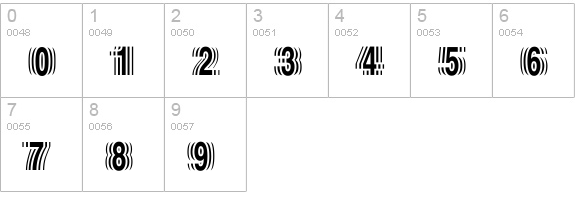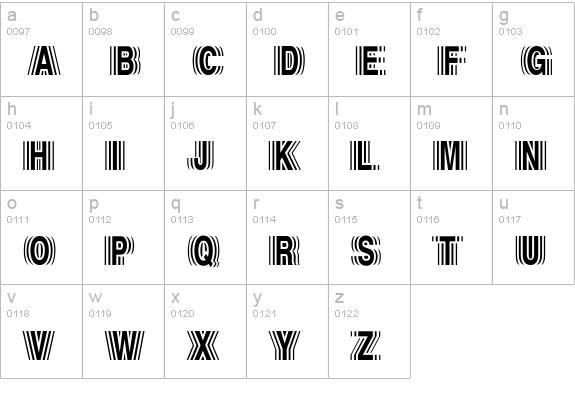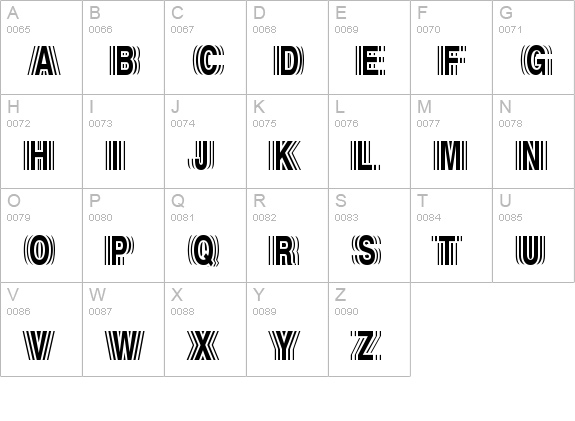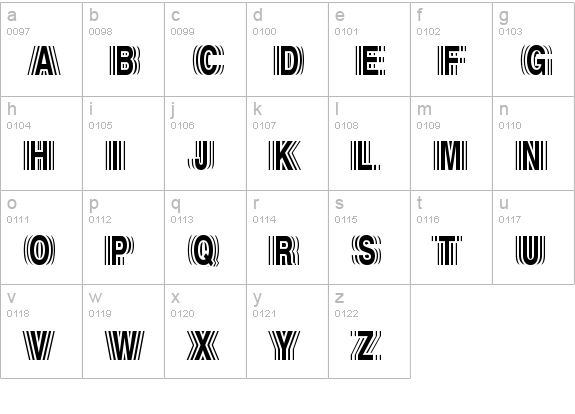
Echo Font Details
Echo font is a modern and stylish typeface that exudes sophistication and elegance. With its clean lines and unique design, Echo font is perfect for adding a touch of class to any project. This versatile font is suitable for a wide range of applications, from branding to editorial design. The best part is that Echo font is available for free download at FontsMarket.com. Don't miss out on the opportunity to enhance your designs with this beautiful and eye-catching font. Download Echo font today and elevate your projects to the next level!